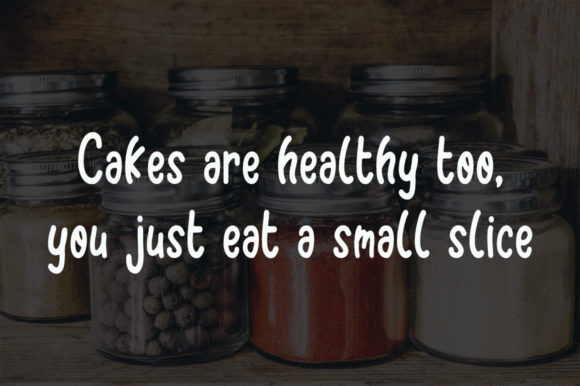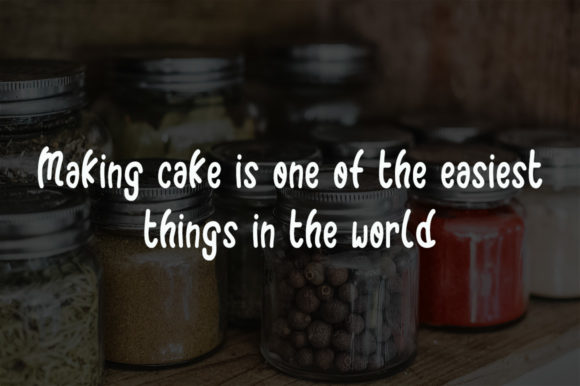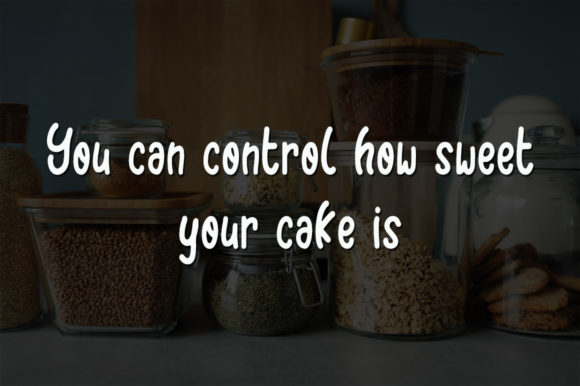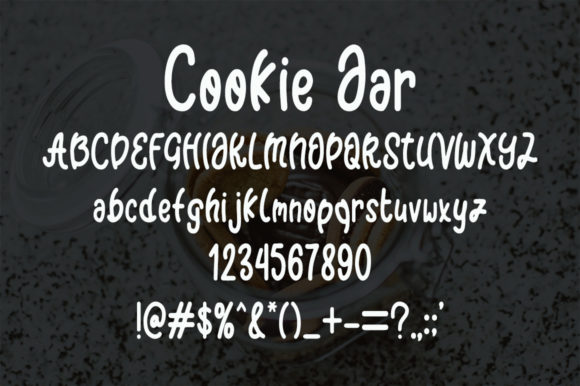
Introducing Cookie Jar Font: The Perfect Bold Handwritten Font for Creative Projects
Are you a designer or crafter looking for a unique and expressive font to elevate your creative projects? Look no further than Cookie Jar Font, a bold handwritten font that is perfect for greeting cards, headlines, invitations, and more. In this article, we’ll take a closer look at the Cookie Jar Font, its features, and how you can use it to add a personal touch to your designs.
What is Cookie Jar Font?
Cookie Jar Font is a bold handwritten font that is designed to make a statement. With its playful and whimsical feel, it’s perfect for adding a touch of personality to your designs. The font is carefully crafted to be highly legible, making it suitable for use in a variety of contexts, from digital displays to print materials.
Key Features of Cookie Jar Font
- Bold and Expressive: Cookie Jar Font is a bold font that is designed to grab attention. Its thick strokes and playful feel make it perfect for headlines, titles, and other display text.
- Handwritten Style: The font has a handwritten style that gives it a personal and unique feel. It’s perfect for adding a touch of warmth and personality to your designs.
- Highly Legible: Despite its bold style, Cookie Jar Font is highly legible, making it suitable for use in a variety of contexts, from digital displays to print materials.
- Versatile: Cookie Jar Font is a versatile font that can be used in a wide range of creative projects, from greeting cards and invitations to headlines and titles.
Uses for Cookie Jar Font
Cookie Jar Font is a versatile font that can be used in a wide range of creative projects. Here are some ideas to get you started:
- Greeting Cards: Add a personal touch to your greeting cards with Cookie Jar Font. Its bold and playful feel makes it perfect for birthdays, holidays, and other special occasions.
- Headlines and Titles: Use Cookie Jar Font to add a touch of personality to your headlines and titles. Its bold style makes it perfect for grabbing attention and adding emphasis.
- Invitations: Make your invitations stand out with Cookie Jar Font. Its playful and whimsical feel makes it perfect for weddings, parties, and other special events.
- Expressive Texts: Use Cookie Jar Font to add a touch of personality to your expressive texts. Its handwritten style makes it perfect for adding a personal touch to your messages.
Tips for Using Cookie Jar Font
Here are some tips for using Cookie Jar Font in your creative projects:
- Use it sparingly: Cookie Jar Font is a bold font that can be overwhelming if used too much. Use it sparingly to add emphasis and personality to your designs.
- Pair it with other fonts: Cookie Jar Font pairs well with other fonts, especially those with a more minimalist style. Experiment with different font combinations to find the perfect look for your design.
- Experiment with colors: Cookie Jar Font looks great in a variety of colors, from bright and bold to pastel and soft. Experiment with different colors to find the perfect look for your design.
Cookie Jar Font is a bold handwritten font that is perfect for adding a touch of personality to your creative projects. Its playful and whimsical feel makes it perfect for greeting cards, headlines, invitations, and expressive texts. With its highly legible design and versatile style, Cookie Jar Font is a great addition to any designer’s toolkit. So why not give it a try and see how it can elevate your designs?
Whether you’re a designer or crafter, Cookie Jar Font is a great choice for anyone looking to add a personal touch to their creative projects. Its unique and expressive style makes it perfect for a wide range of applications, from digital displays to print materials. So why not download Cookie Jar Font today and start adding a touch of personality to your designs?